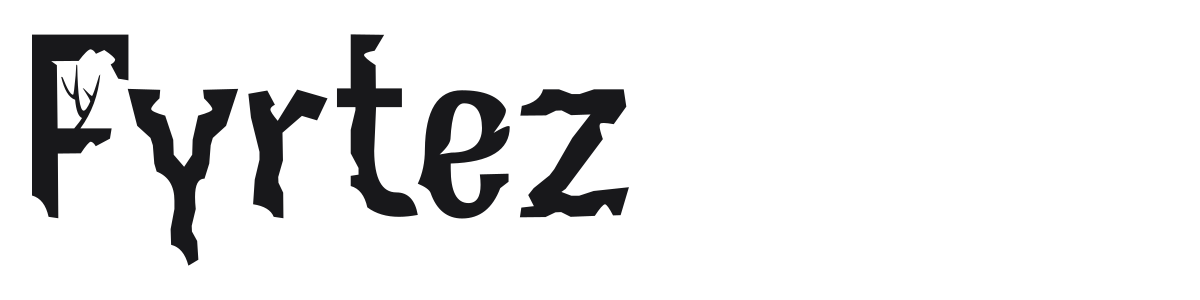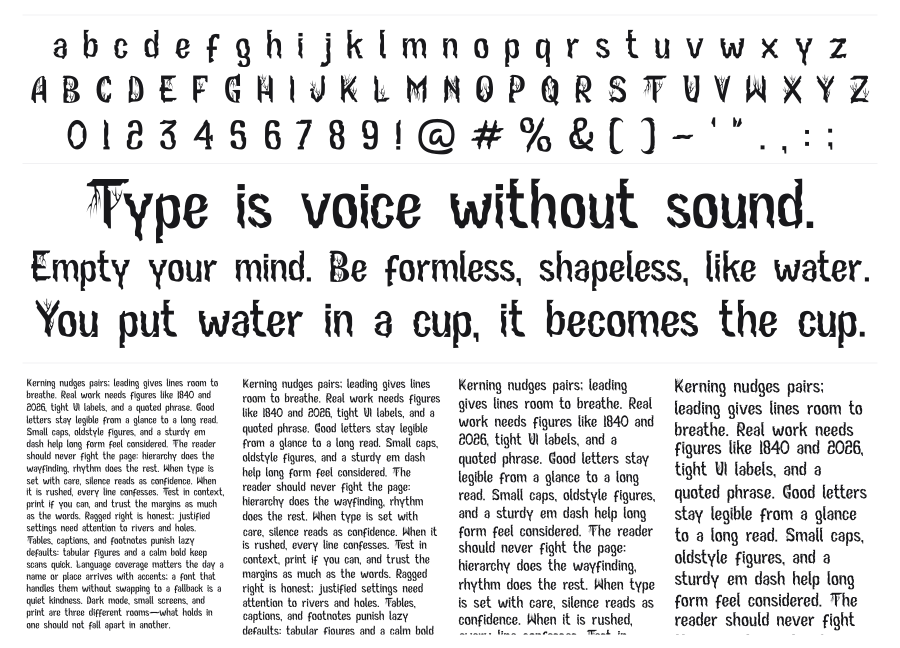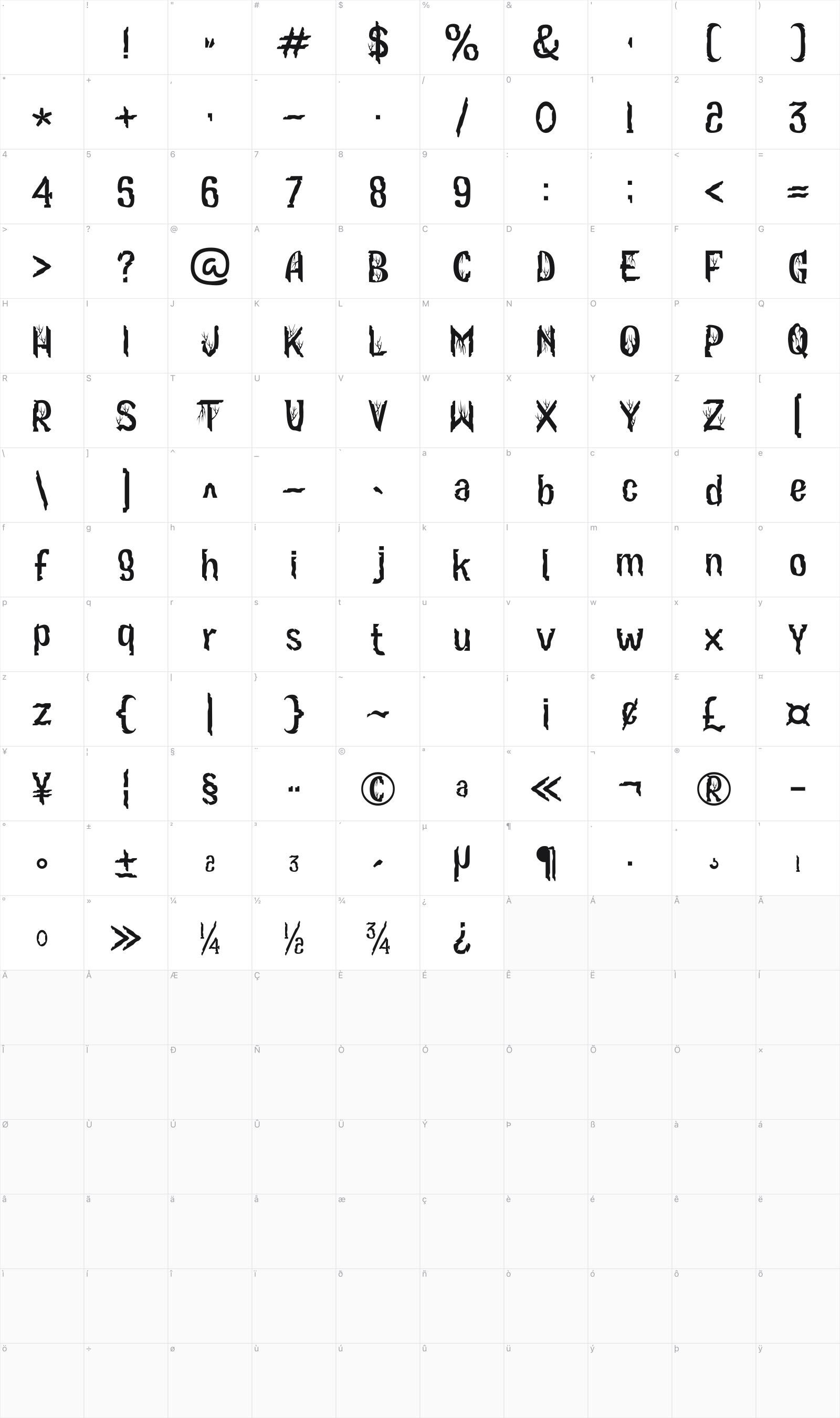
Fyrtez
Fyrtez is a heavy distressed serif with an eroded, splintered texture that gives every character a decayed, hand-carved quality. The irregular edges and chunky serifs push it firmly into dark, atmospheric territory. It reads instantly as horror or heavy metal at large sizes.